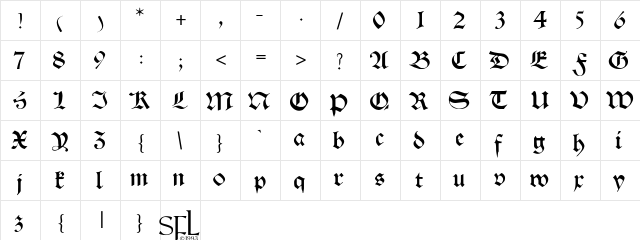
Brockton Regular
Design Context for Brockton Typeface
Brockton is a composed and adaptable typeface that performs quietly and consistently across a wide range of design contexts.